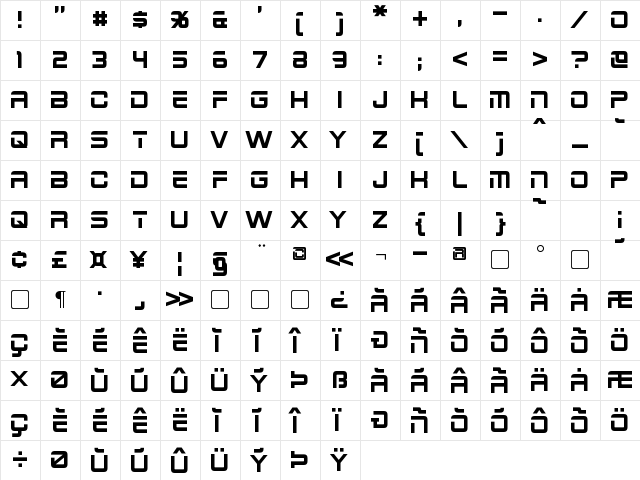
2015 Cruiser Regular
| Designer | Neale Davidson |
Design Context for 2015 Cruiser Typeface
2015 Cruiser is a composed and adaptable typeface that performs quietly and consistently across a wide range of design contexts.